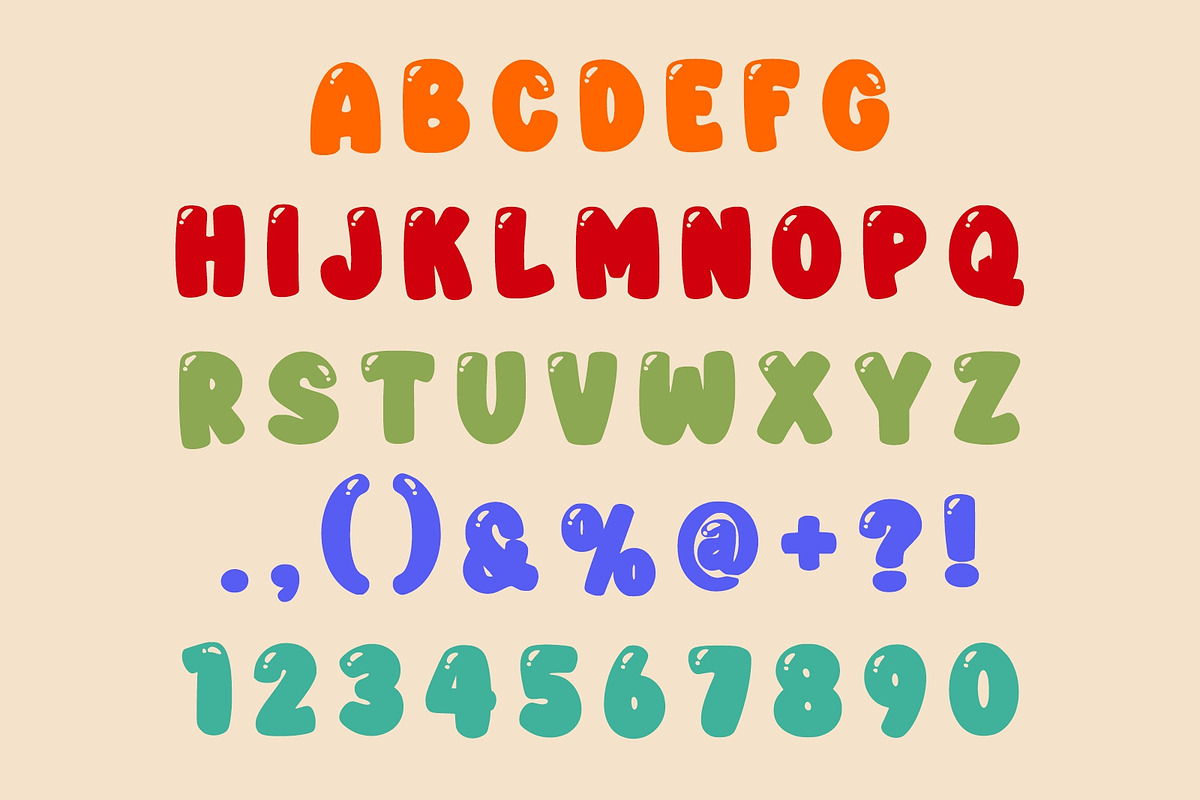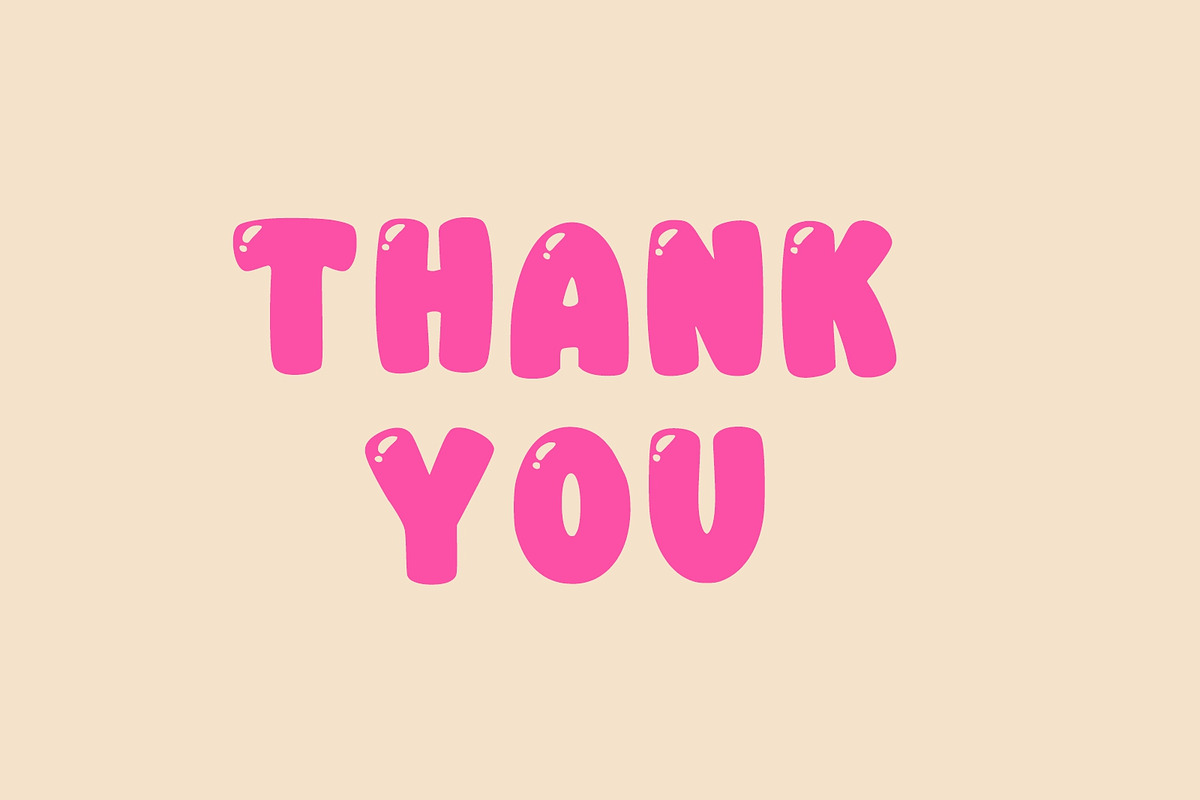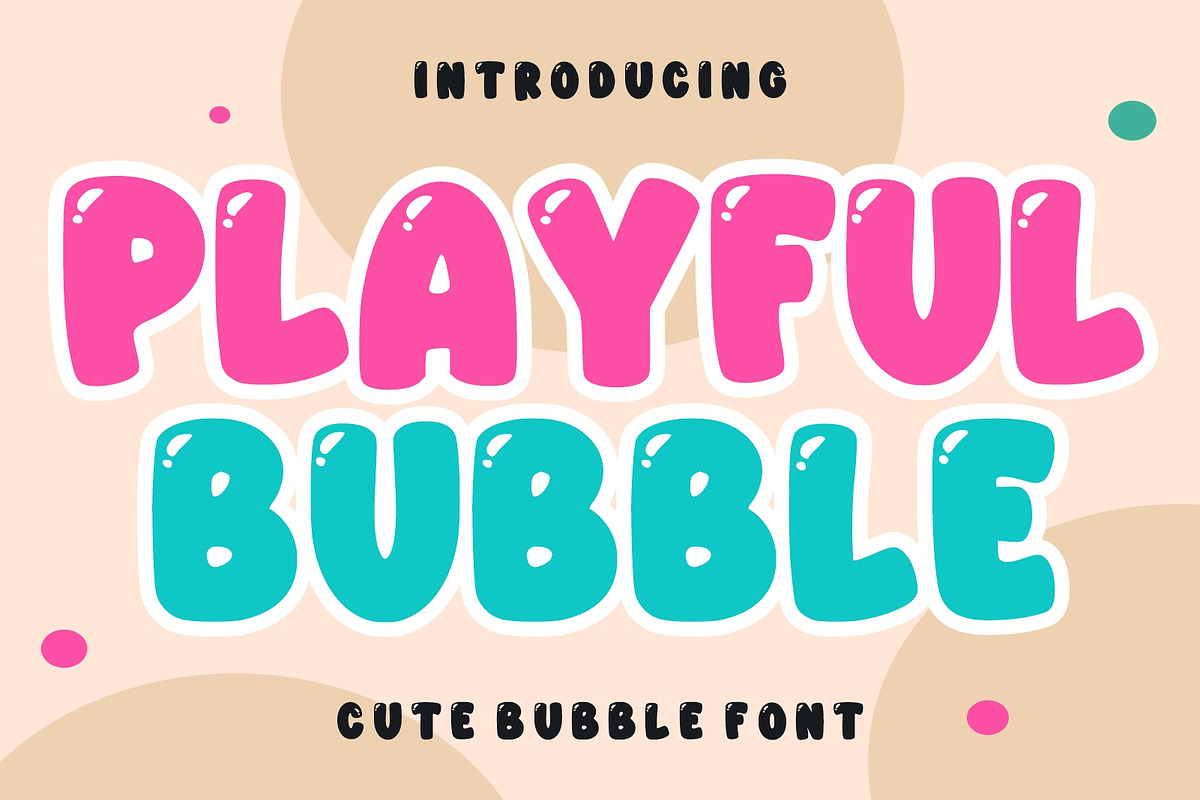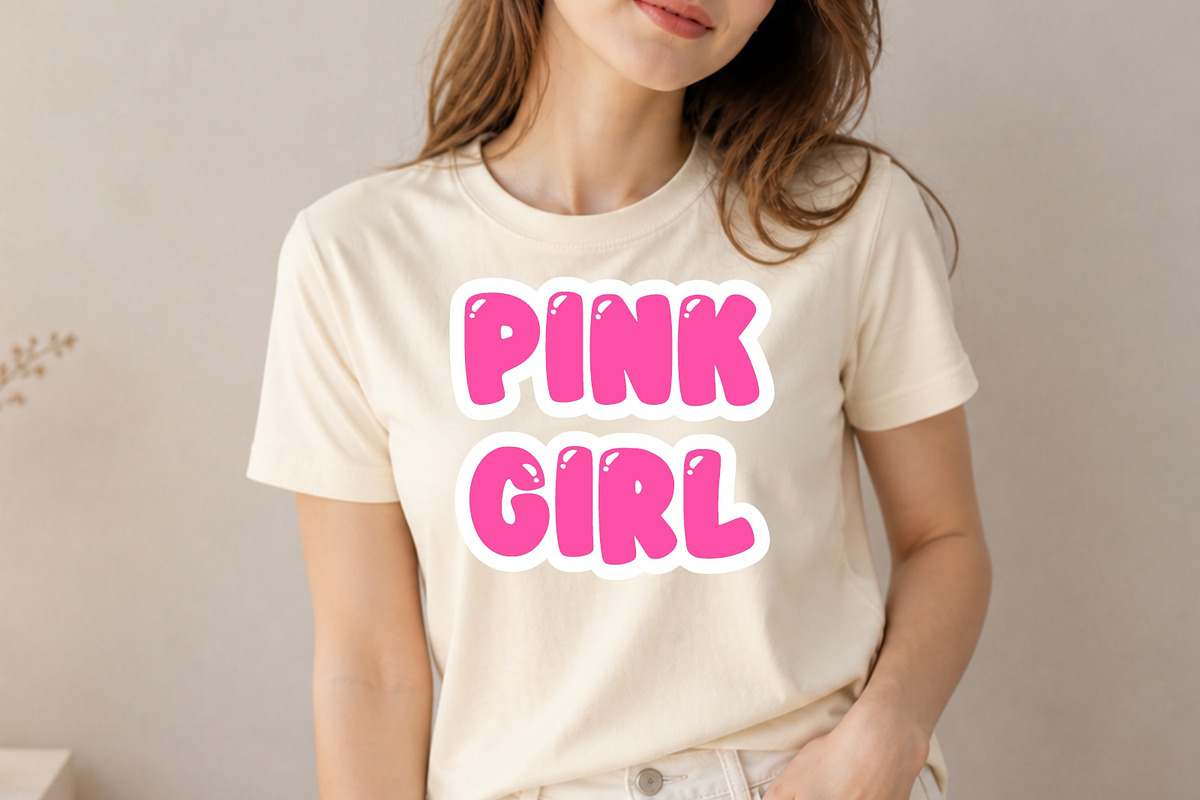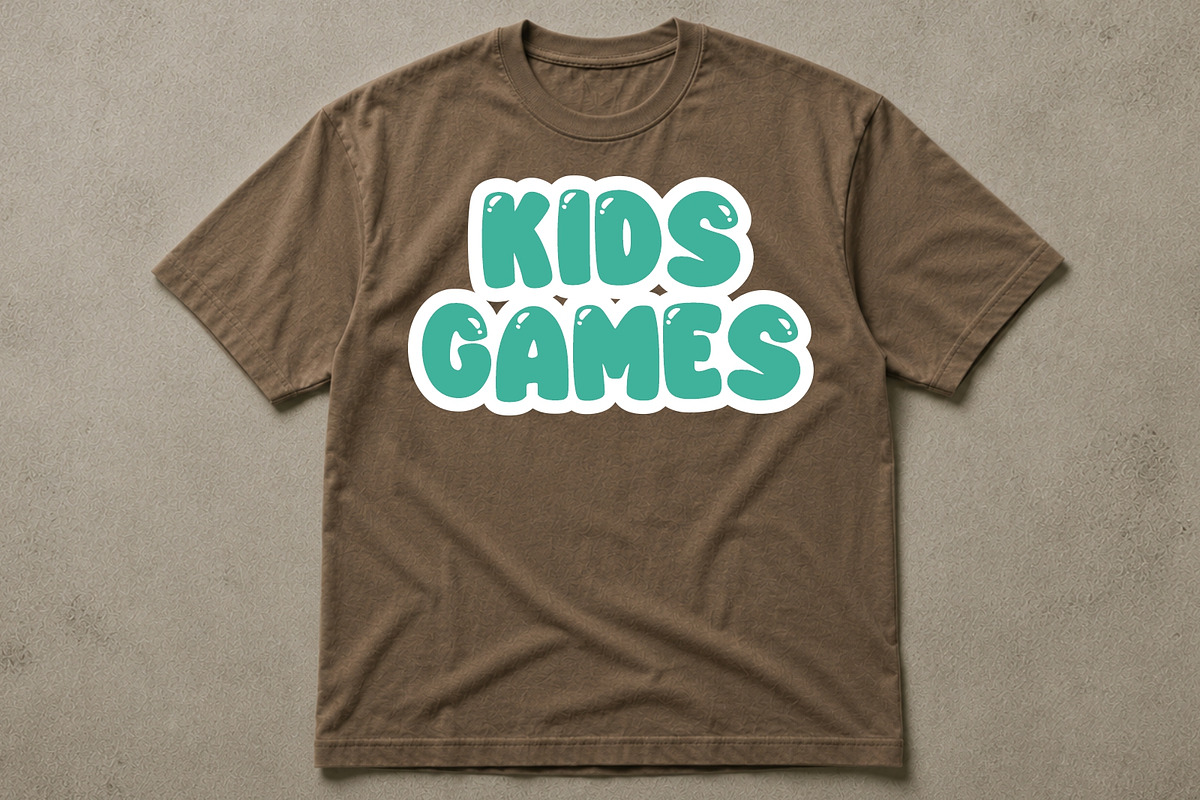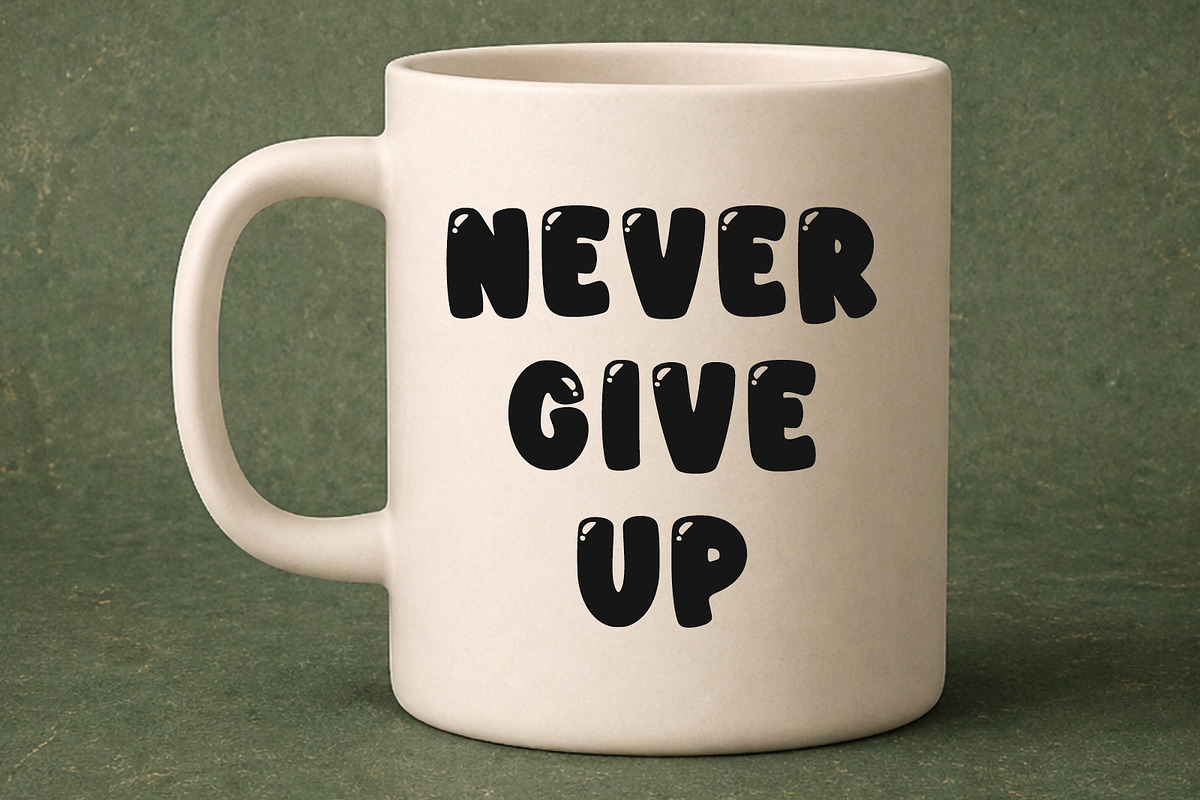
Playful Bubble
Playful Bubble is a sweet and cheerful bubble display font designed with soft rounded shapes and playful cartoon vibes. This cute font is perfect for kids projects, branding, posters, stickers, invitations, packaging, social media graphics, t-shirts, and fun creative designs. With its adorable bubbly style and eye-catching appearance, Playful Bubble adds a happy and energetic touch to every project.